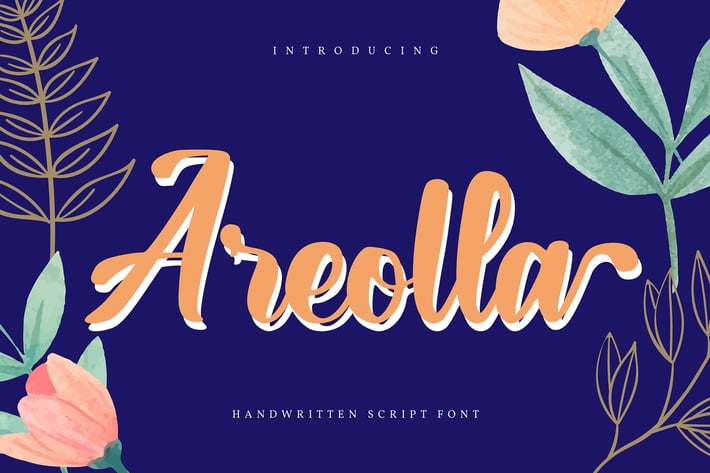
Areolla | Handwritten Script Font
Areolla | Handwritten Script Font with a calligraphy style, So beautiful on invitation like greeting cards, branding materials, business cards, quotes, posters, and more!